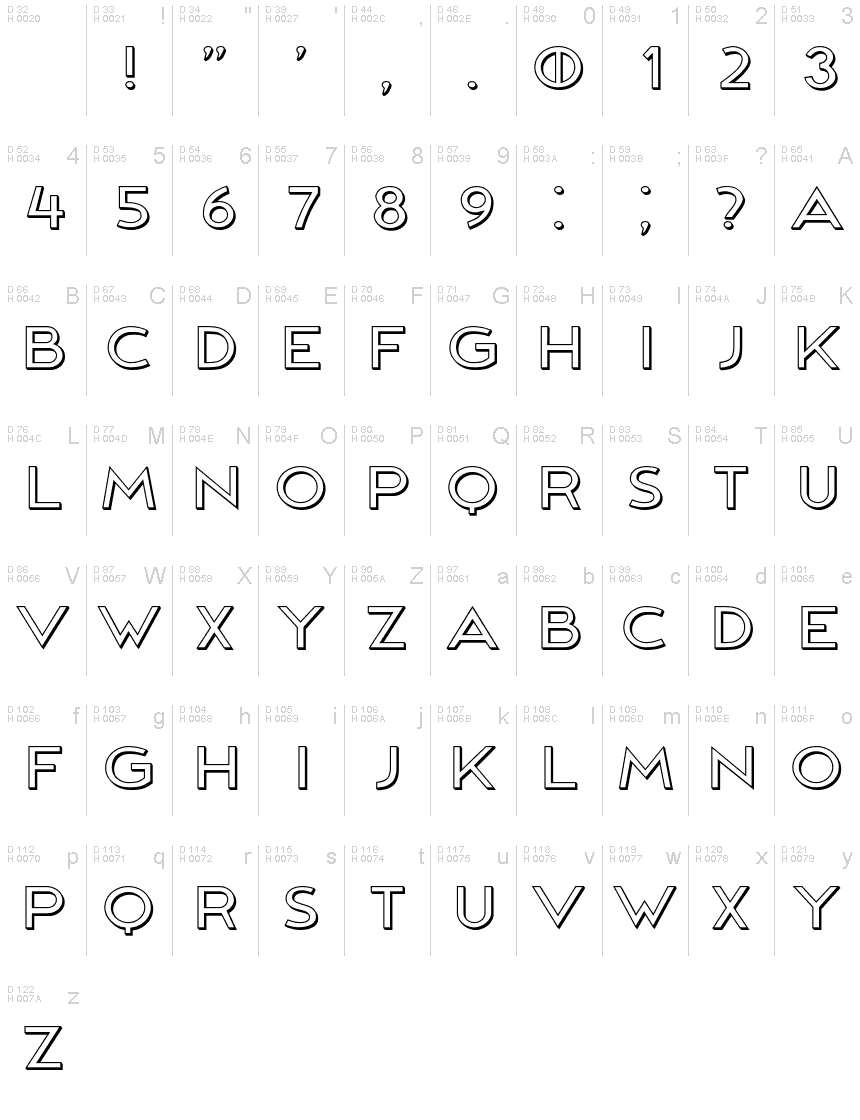
Vladimir Sans Regular
Introducing Vladimir Sans, a light and wide 3d sans serif font designed by Vladimir Nikolic. It is an ideal choice for projects looking to add a modern and bold touch, like magazine covers, posters, logos, web designs and more. It is unique enough to stand out yet versatile enough to be used in a variety of applications. With its sleek lines and clean look, Vladimir Sans will give any project an eye-catching appeal!